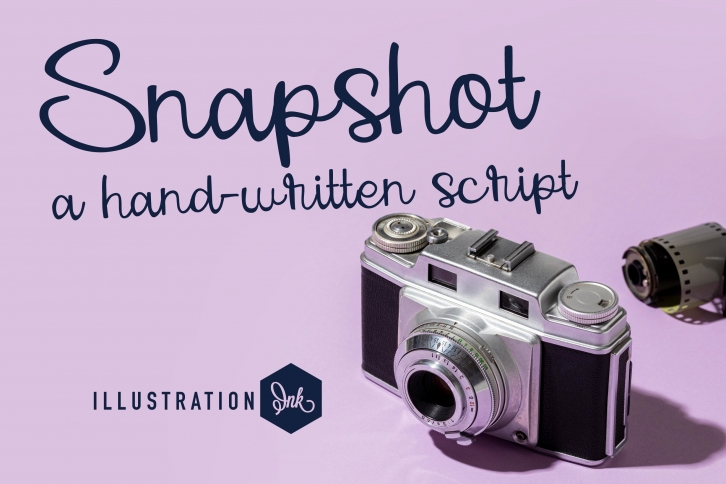
This fun hand-crafted script is a casual cursive that is great for any project. It is made in a cheerful manner to complement your most creative ideas.